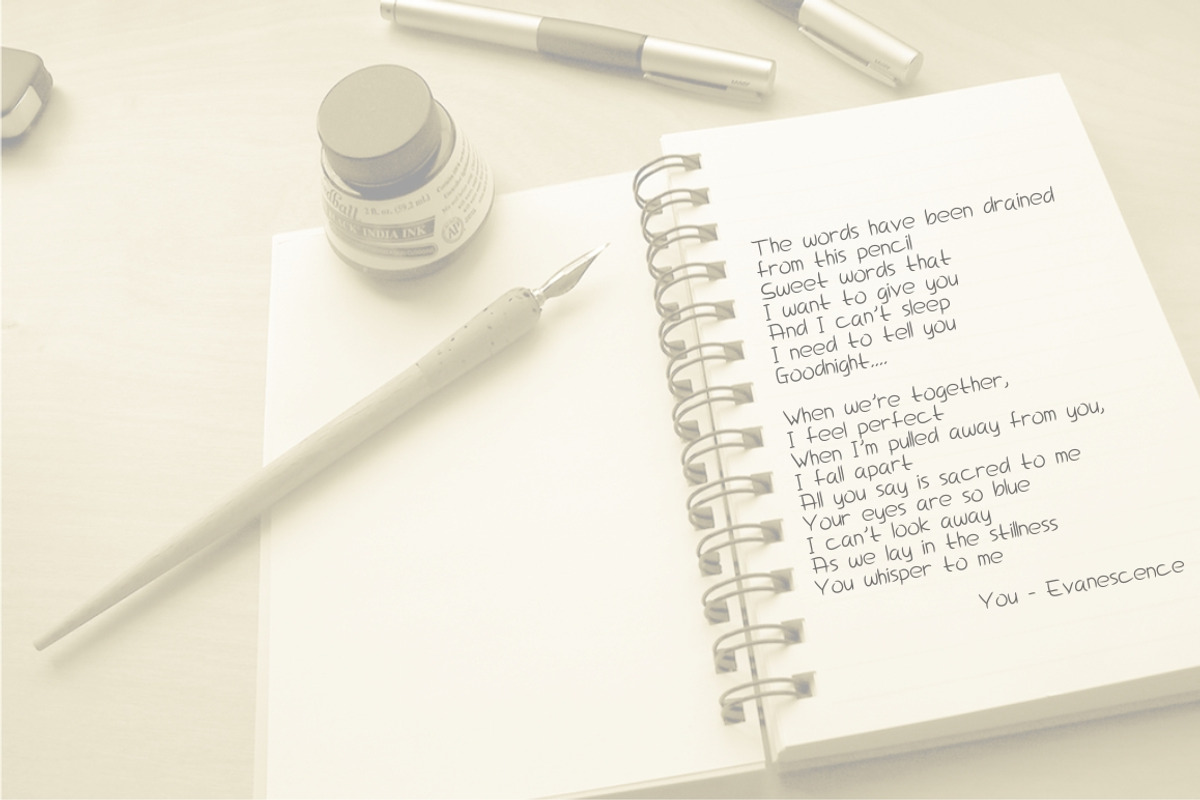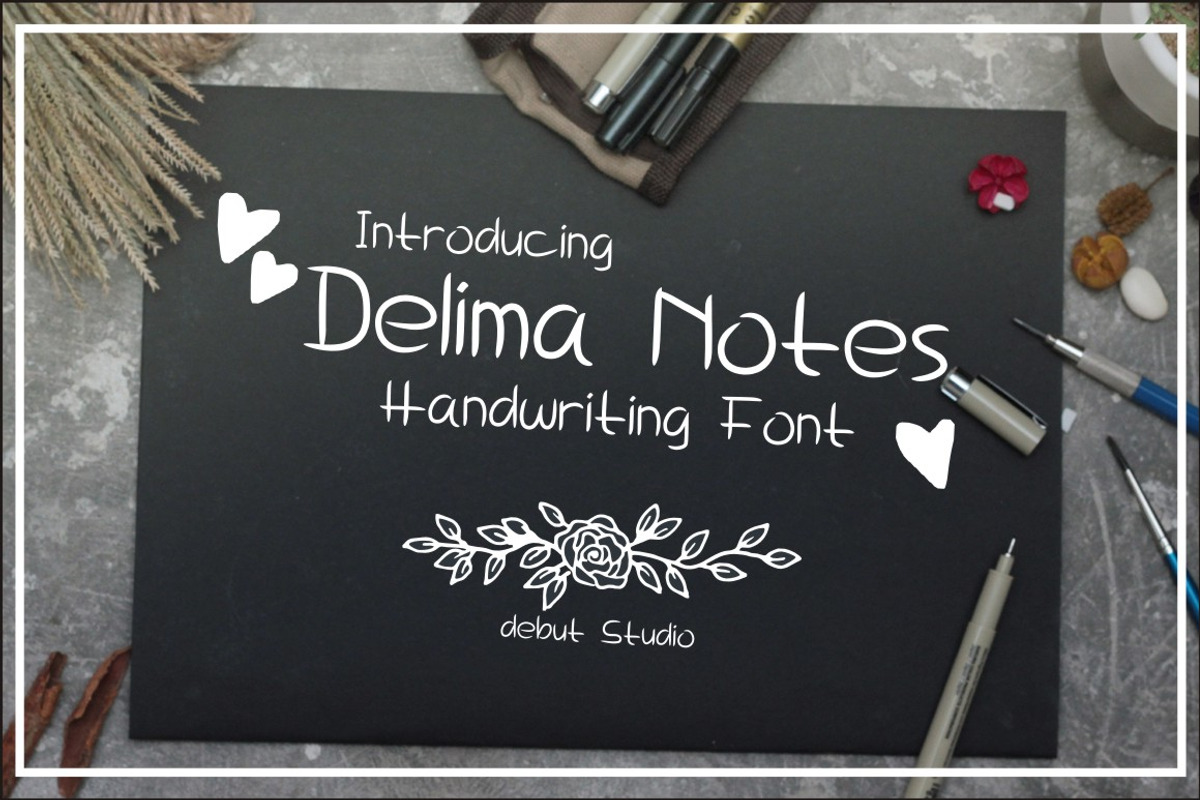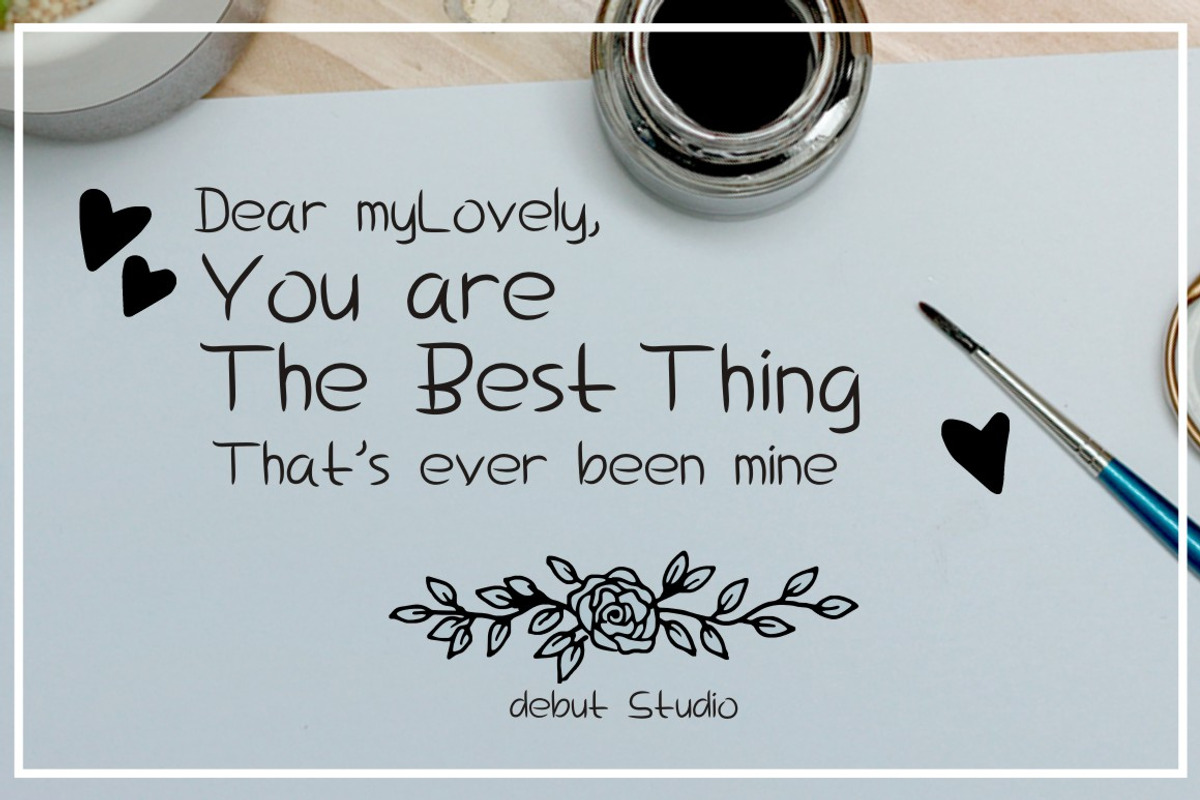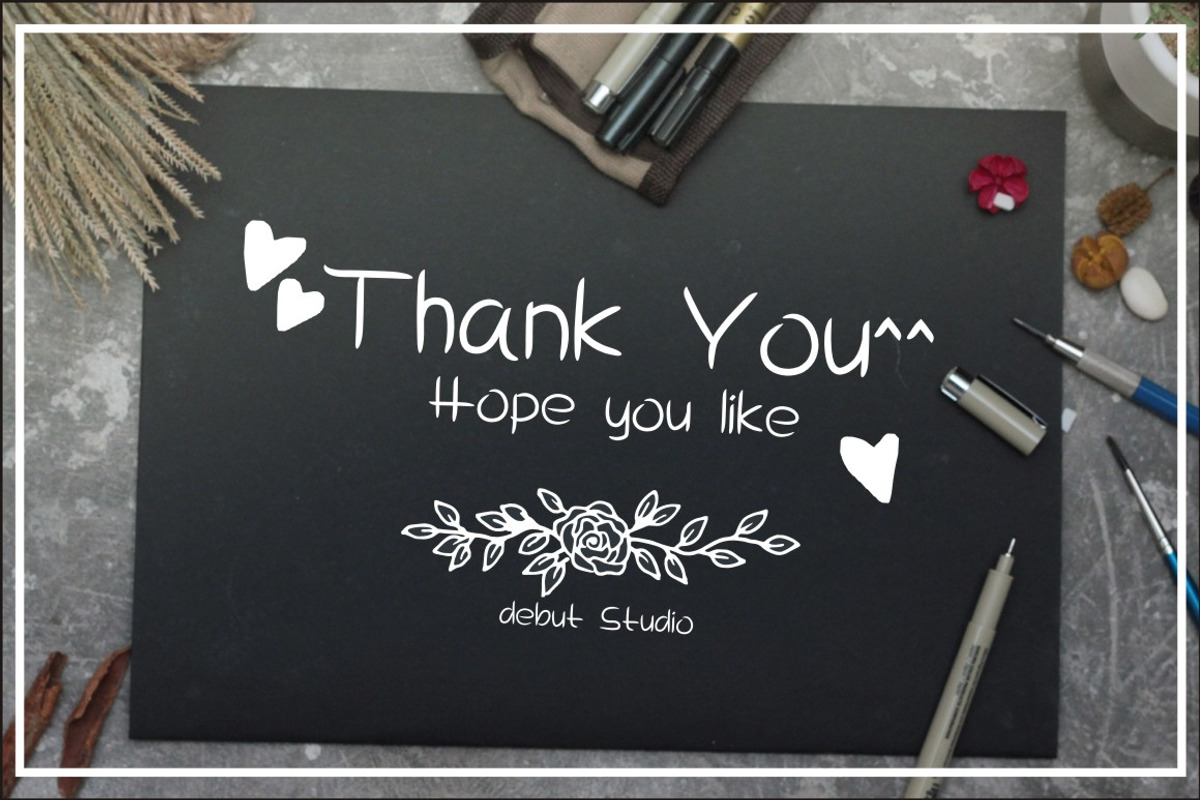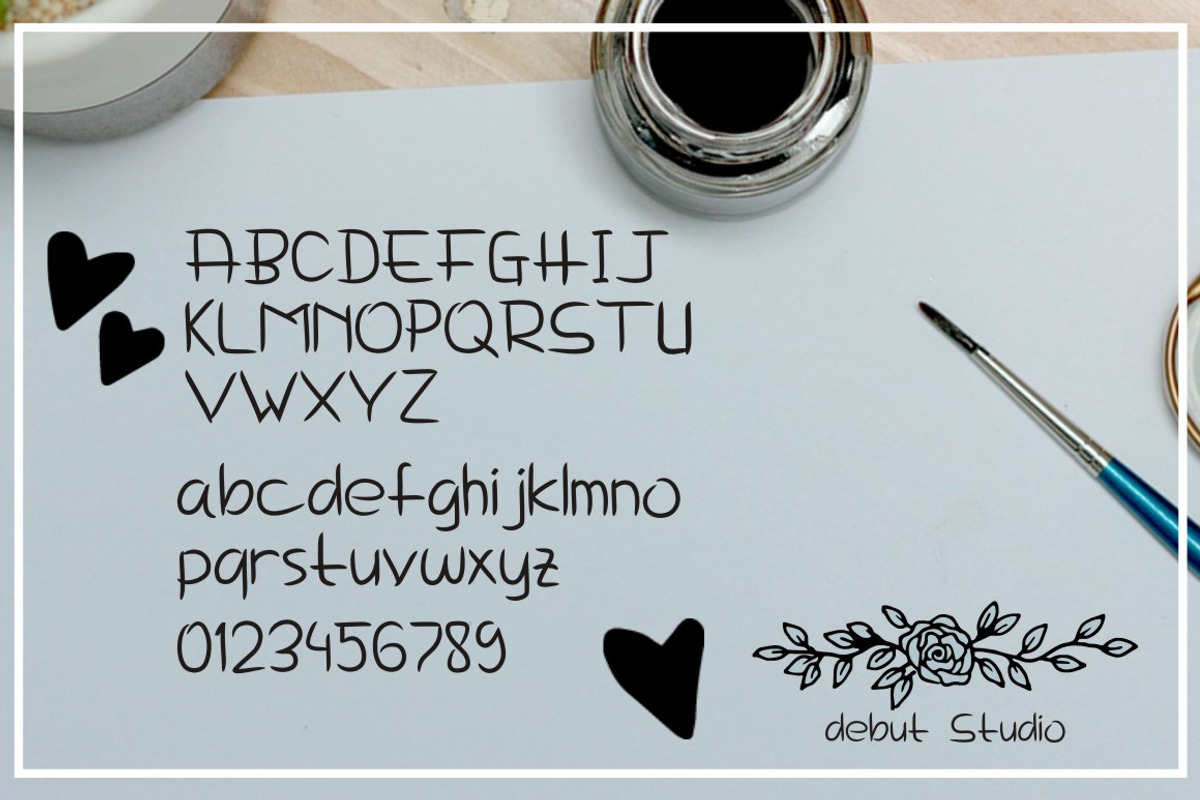
Delima Notes - Handwriting Fonts
Introducing Delima Notes - Handwriting Font
Delima Notes was made to make your designs with a note background looking nice, and give you nice texting to your some write on the book like textbook or comic